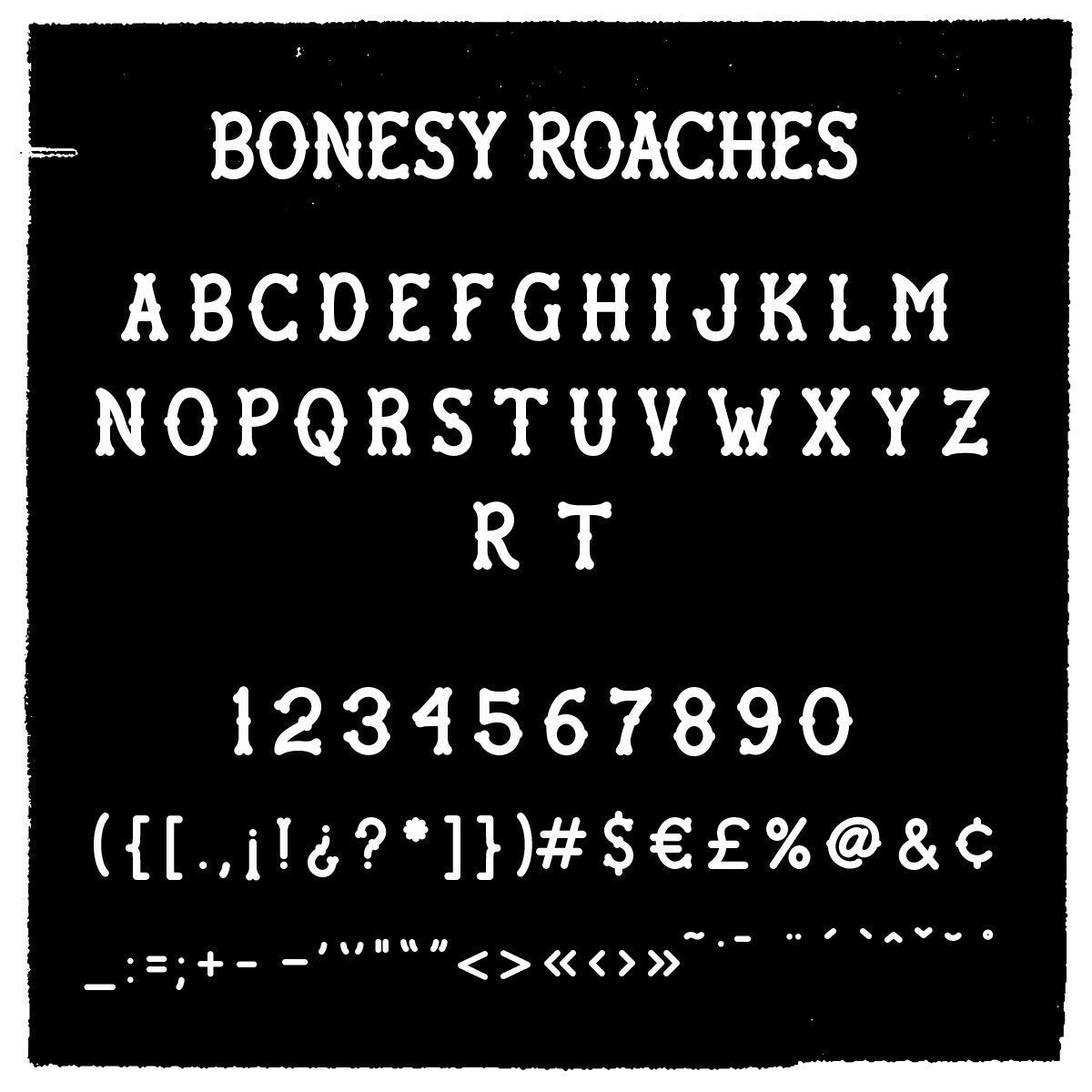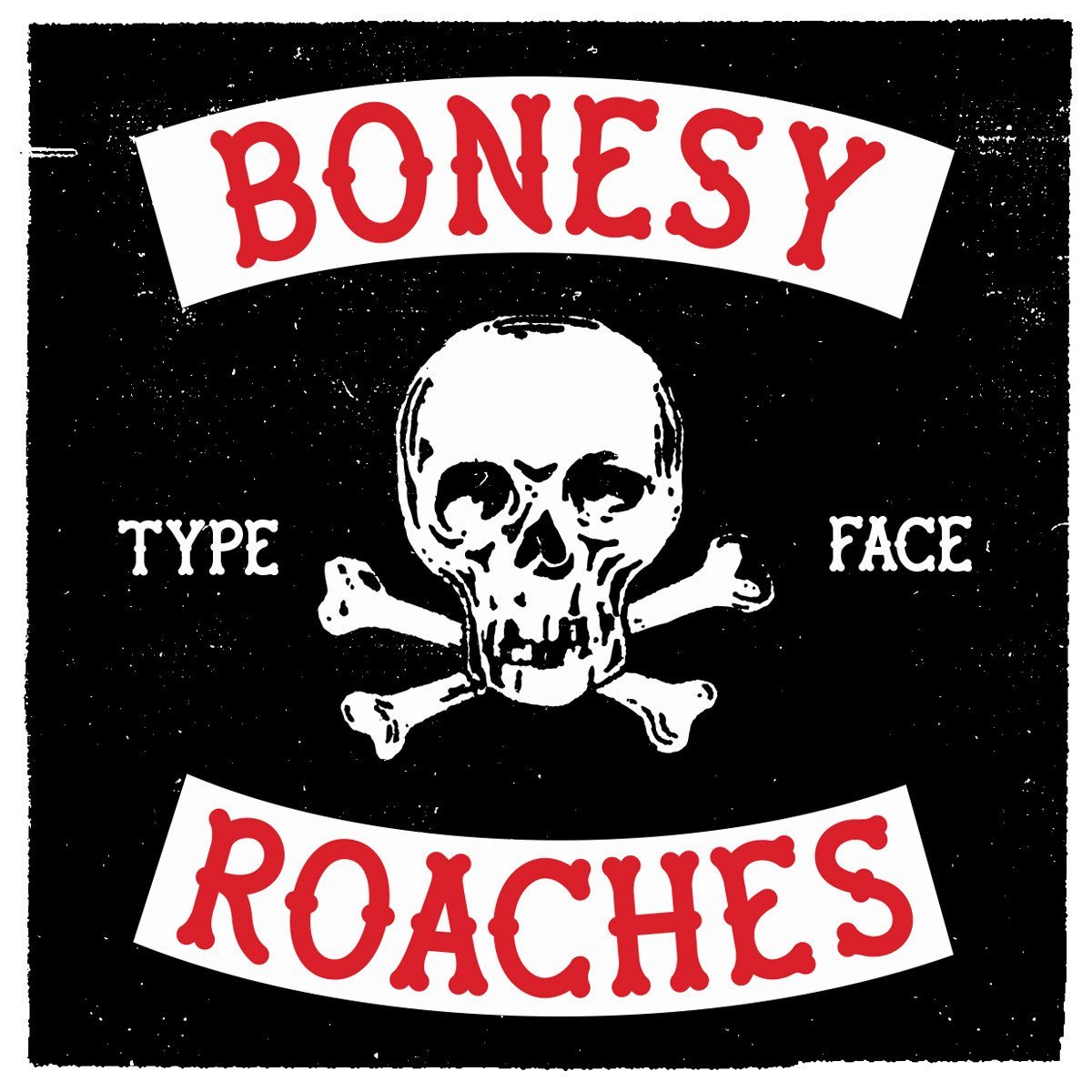
Bonesy Roaches Font
Loosely based on the Roaches Vest from Cheech & Chong's "Next Movie" This playful condensed tuscan typeface is perfect for your biker club inspired artwork, halloween themed art, or just to give something a fun circus type feel.
Bonesy Roaches is an upper case display Opentype font with SOME foreign characters and most standard glyphs (see below image for glyphs). The upper and lower cases are identical except for an alternate "R" and "T" in the lower case.
From biker jackets to kids birthday invitations, Bonesy Roaches is a pretty versatile display face.